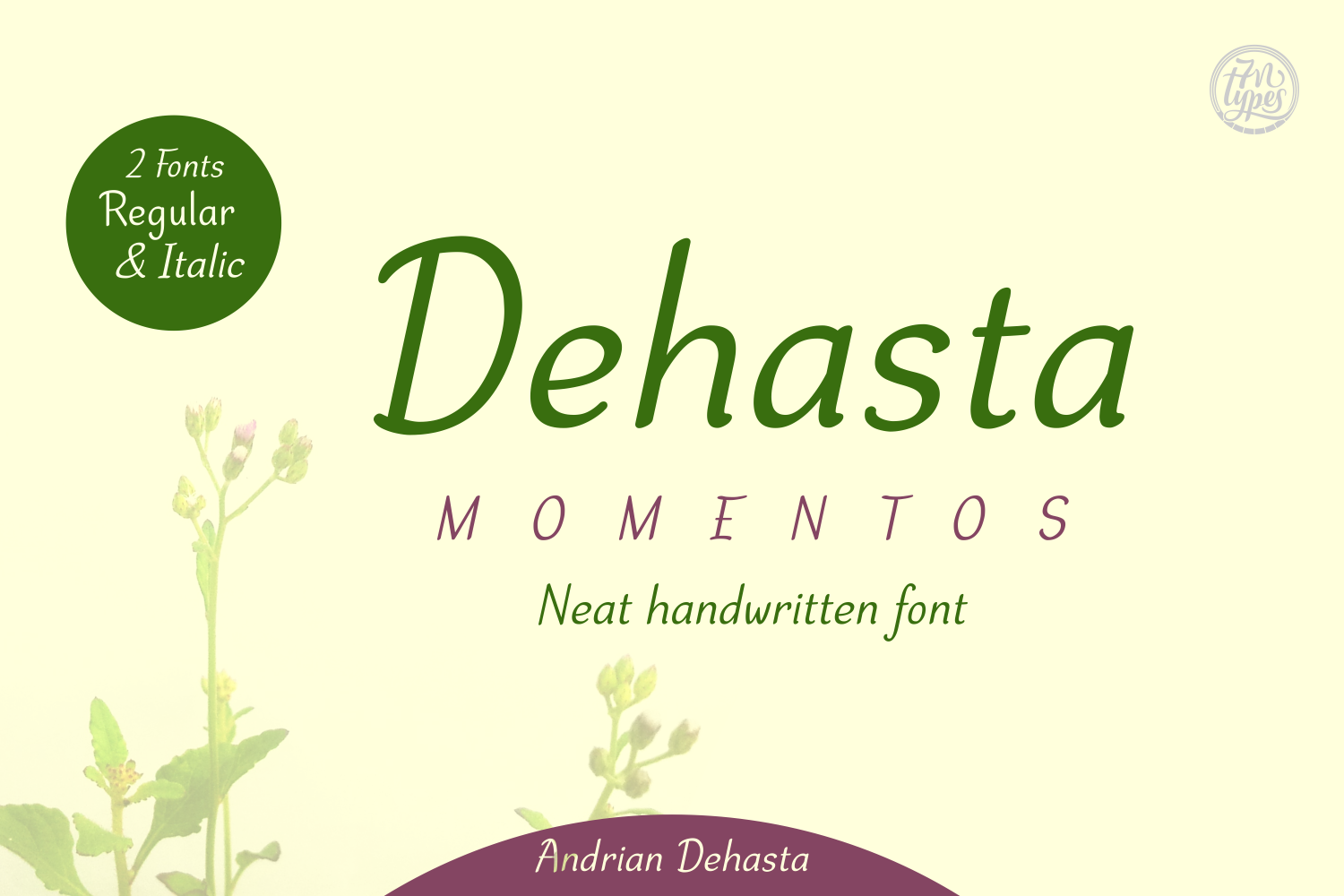
Dehasta Momentos
Dehasta Momentos Font
Dehasta Momentos is a charming, handwritten font that is hallmarked by its legibility.  Great for body text or in displays, Dehasta Momentos is a versatile and friendly font to a large array of designs.